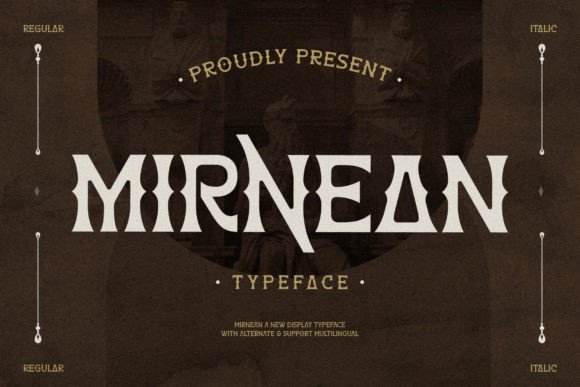
Step into the world of captivating calligraphy with Mirnean Font, a serif font family that exudes elegance and sophistication. Crafted by Storytype Studio, Mirnean boasts a timeless design rooted in classic typography while embracing a touch of modern flair. Its enchanting gothic undertones add a touch of intrigue and mystery, making it an ideal choice for evoking a sense of luxury and refinement in your creative endeavors.
Unleash your creativity and explore the boundless possibilities of Mirnean. Its versatility knows no bounds, lending itself seamlessly to a myriad of applications. Create wedding invitations that radiate romance and charm, design book covers that exude an air of sophistication, or craft movie titles that captivate audiences with their timeless allure. Let Mirnean elevate your fashion brand's identity, adding a touch of elegance to clothing labels and designs.
With Mirnean, your words take on a life of their own, flowing effortlessly from your pen or keyboard. Craft magazine layouts that engage readers with their visual appeal, design quotes that resonate with depth and meaning, and create lettering art that leaves a lasting impression. The possibilities are endless, limited only by the boundaries of your imagination.
Mirnean is not just a font; it's an artistic expression that breathes life into your creative pursuits. Its intricate details and sweeping curves invite you on a visual journey, transforming ordinary words into captivating masterpieces. Embrace the timeless beauty of Mirnean and let your designs radiate an aura of luxury and sophistication.